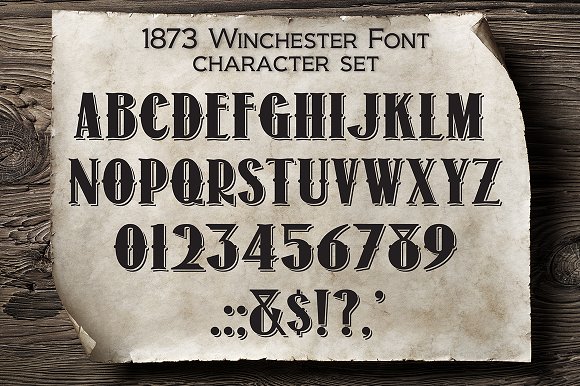
Introduction to 1873 Winchester Font
Old time font that’s just as good for high end mustache wax as it is for gritty and dirty wanted posters.
Key Features of 1873 Winchester Font